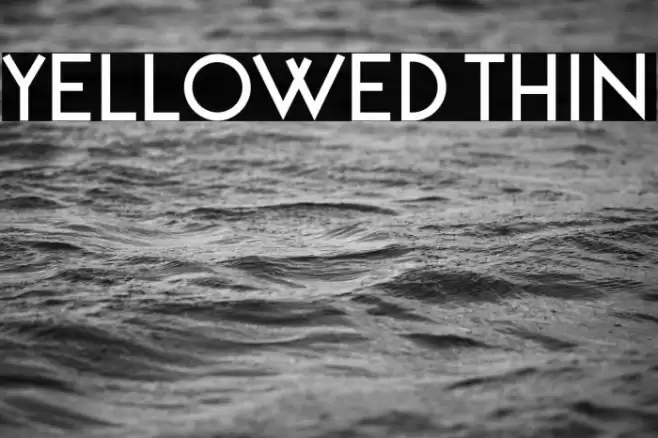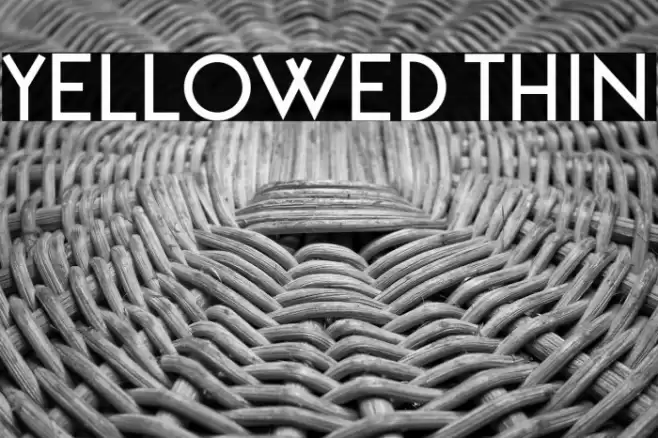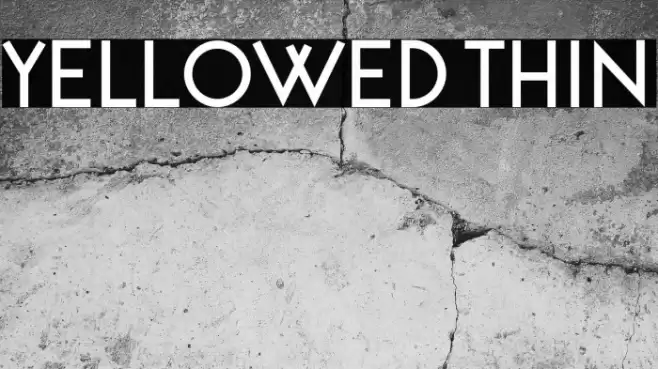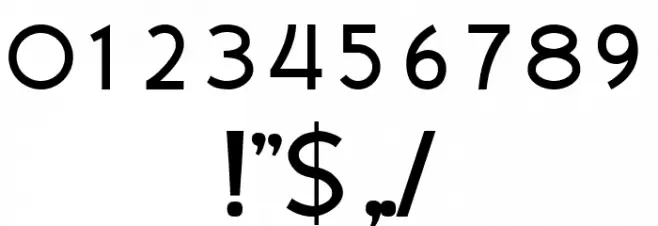
Yellowed Thin Font
Yellowed Thin Description
This font features a clean and modern aesthetic with a geometric sans-serif style. The characters are well-proportioned, offering a sense of balance and clarity. The uppercase letters are bold and assertive, while the lowercase letters maintain a consistent and harmonious appearance. The numerals are straightforward and easy to read, making them suitable for various applications. Special characters are designed with simplicity in mind, ensuring they complement the overall look. The font's uniform stroke width and lack of serifs contribute to its contemporary feel, making it ideal for digital and print media.
A modern, geometric sans-serif font with clean lines and balanced proportions from Uncategorized fonts.